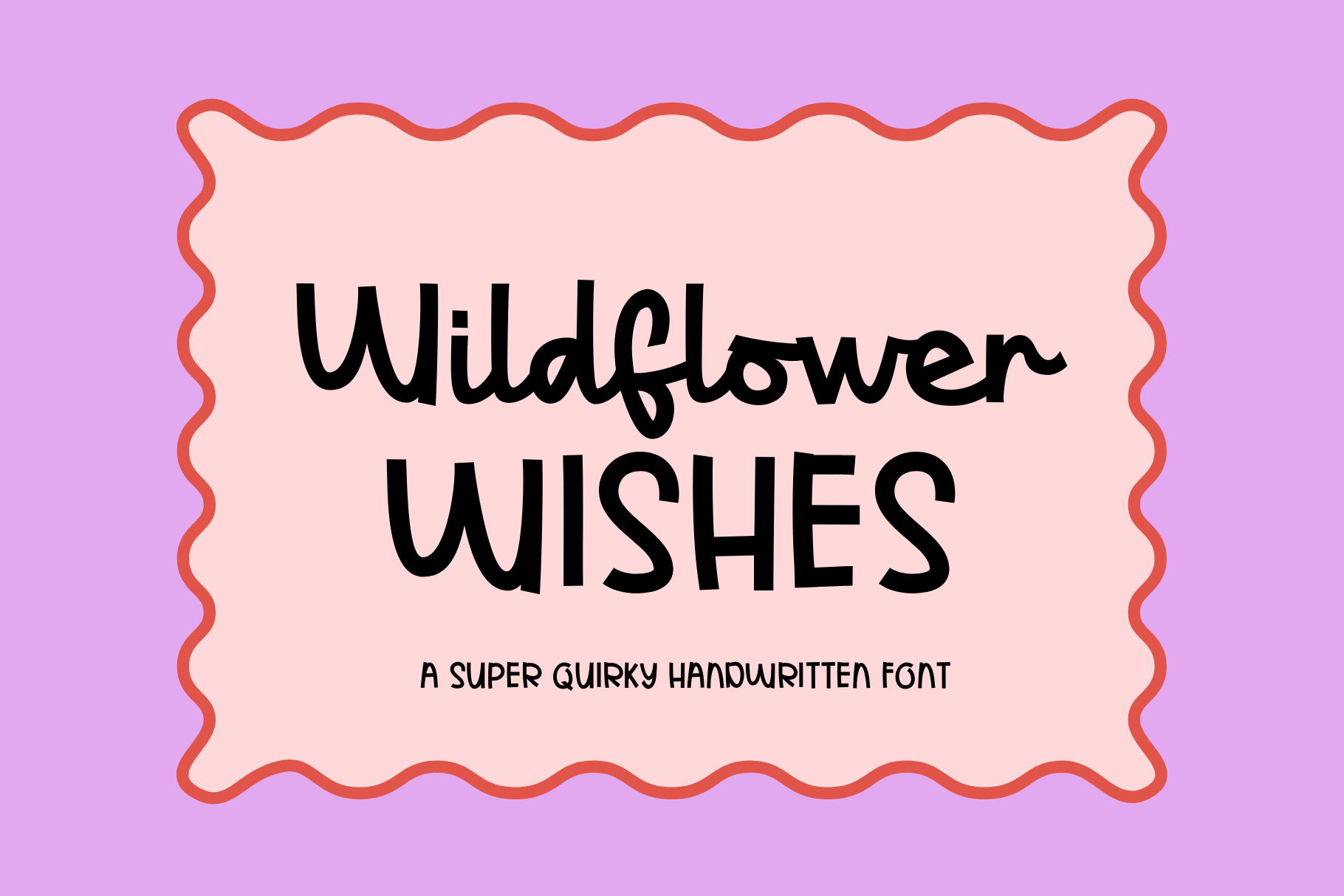
Wildflower Wishes | Quirky Font
Introducing Wildflower wishes, a quirky casual handwritten font duo with a funky script. The font is perfect for branding, cricut projects, svg files, shirts, stickers, logo, wedding invitations, greeting cards, fashion, and all so much more!
- Wildflower Wishes